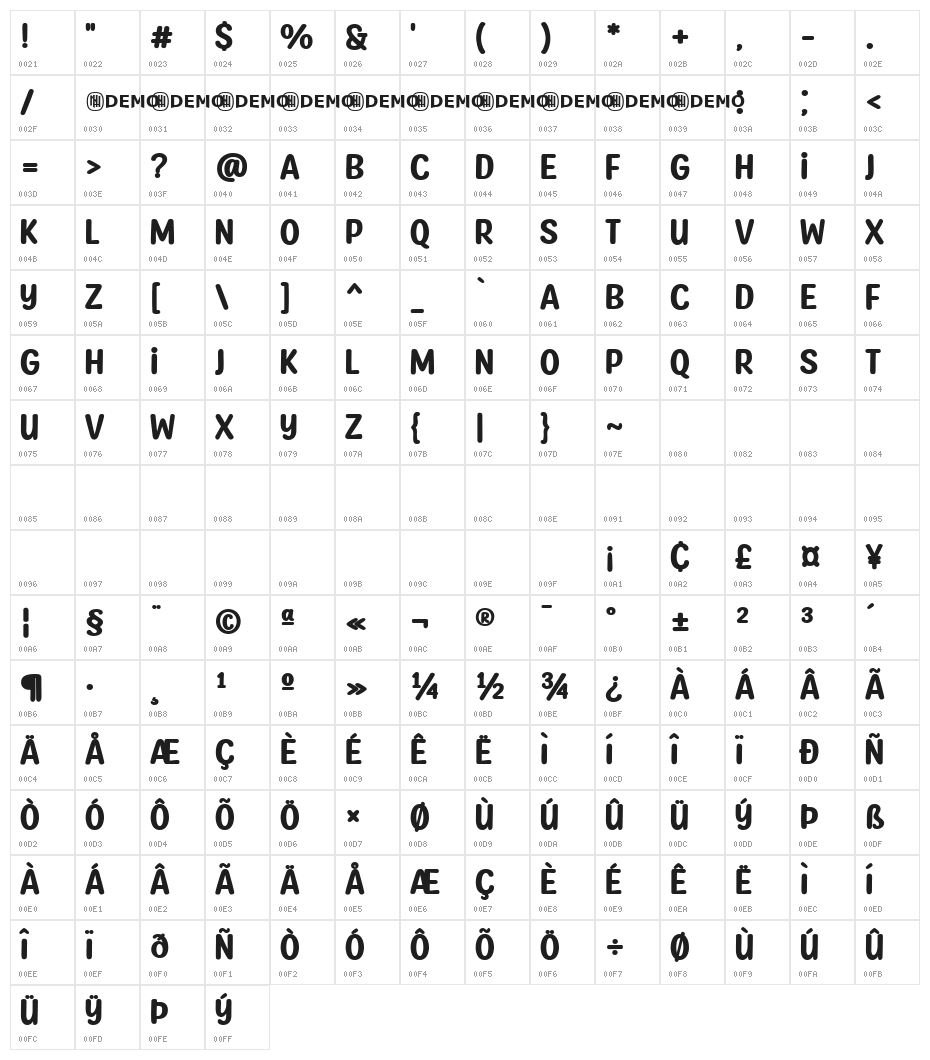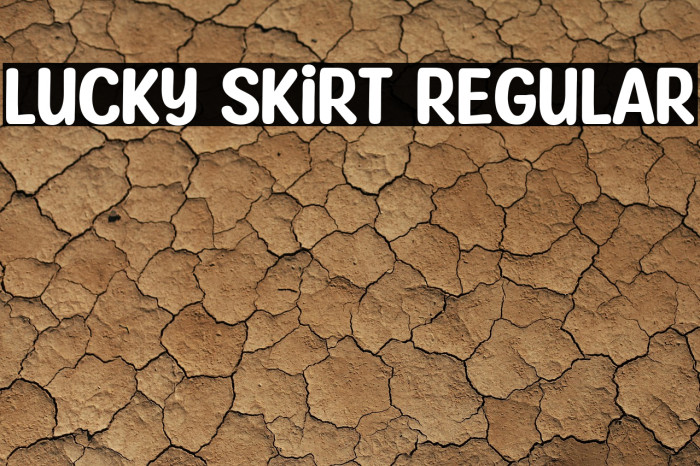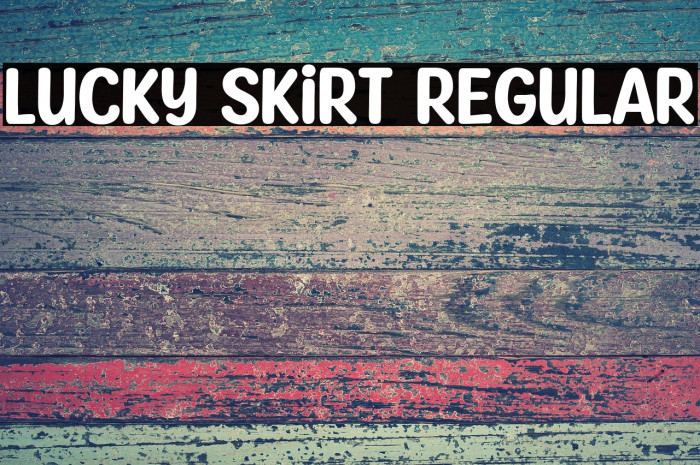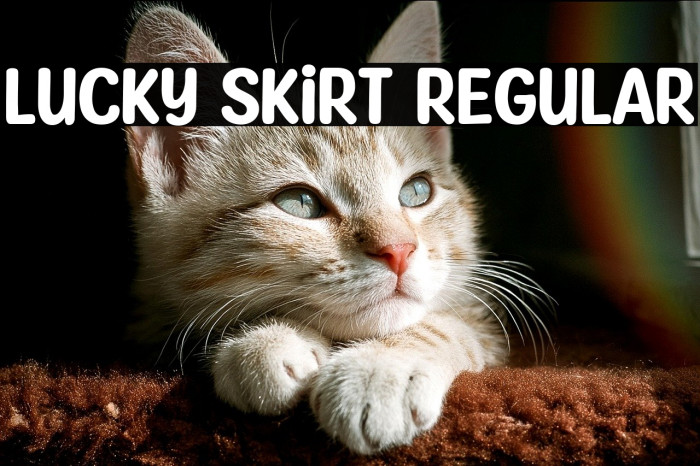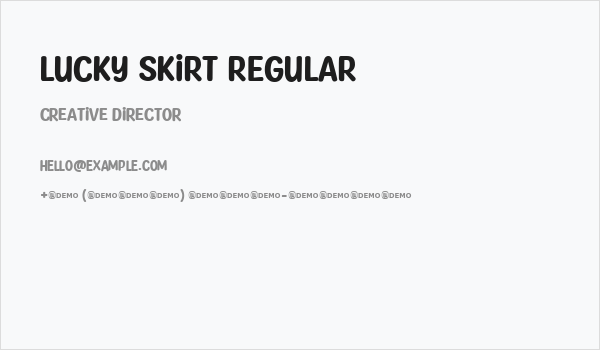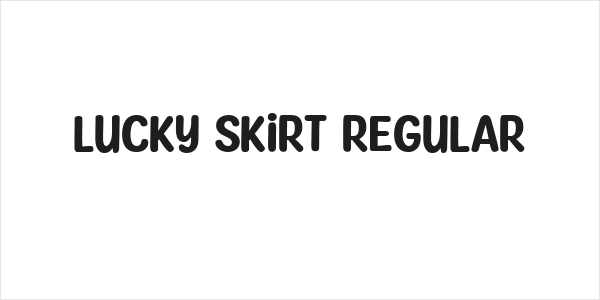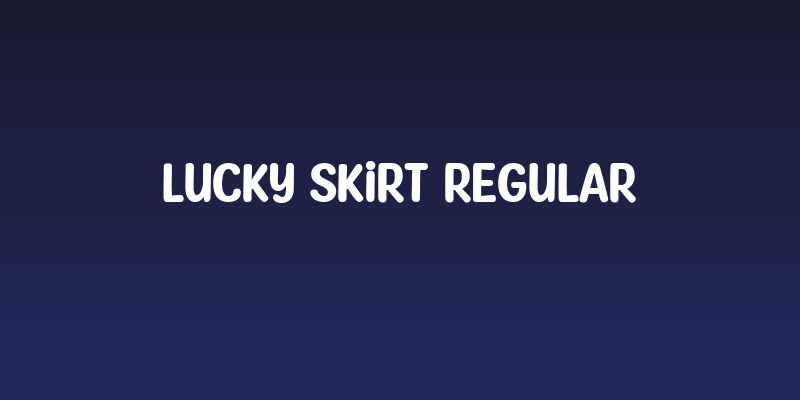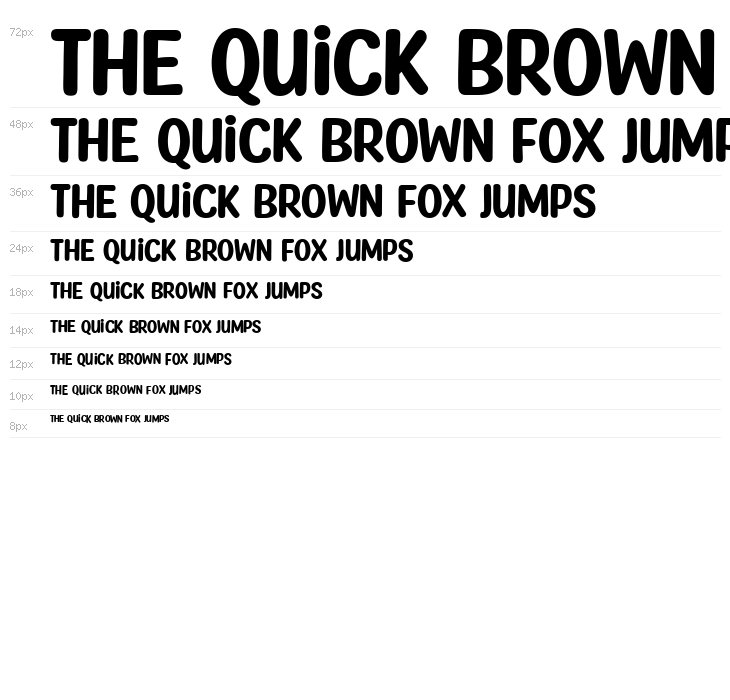
Lucky Skirt Regular Font
Lucky Skirt Regular Description
This font features a playful and bold style with rounded edges, giving it a friendly and approachable appearance. The characters are uniformly thick, providing a consistent and solid look across all letters and numbers. The uppercase and lowercase letters maintain a similar width, enhancing readability and balance. The font includes a full set of uppercase and lowercase letters, numbers, and a variety of special characters, making it versatile for different design needs. Its boldness and rounded shapes make it stand out, suitable for projects that require a touch of fun and creativity.
| Proposed Projects | Ideal for children's books, playful branding, posters, and social media graphics. |